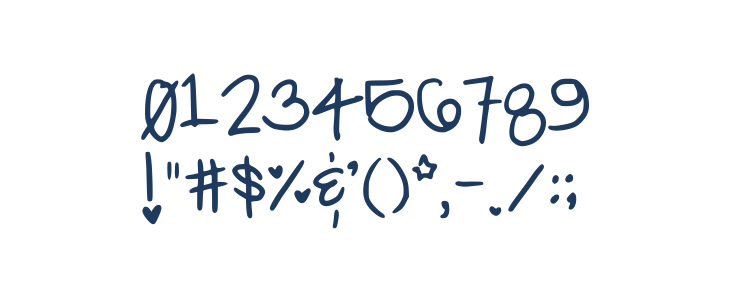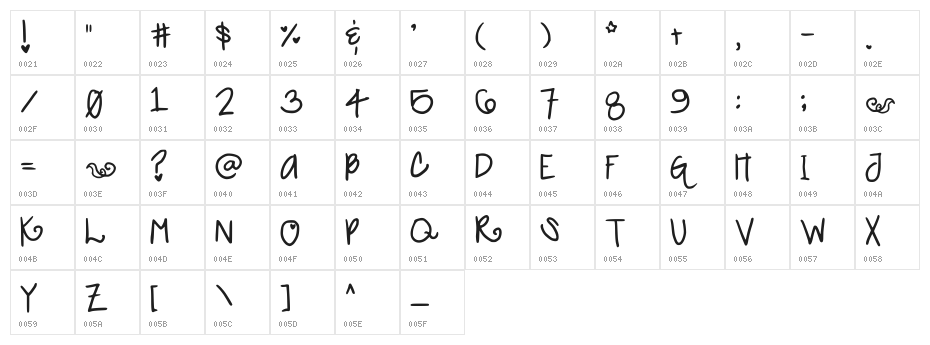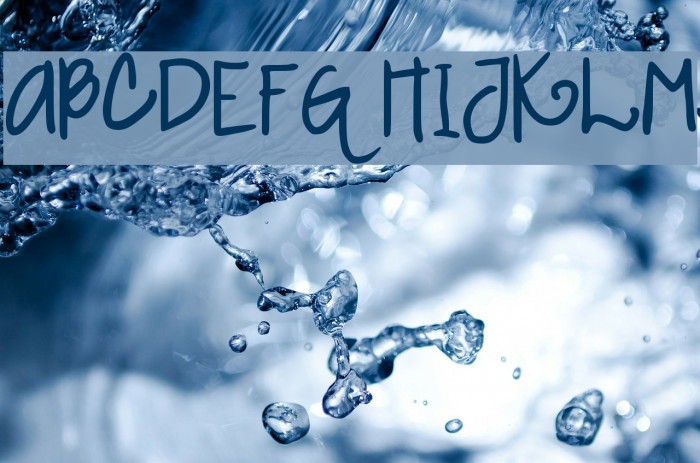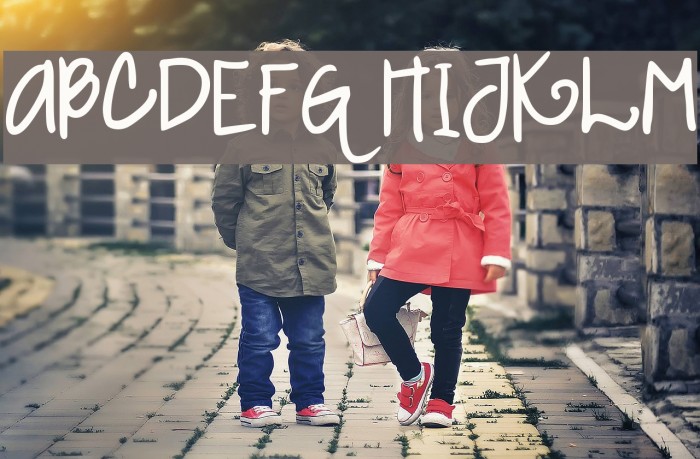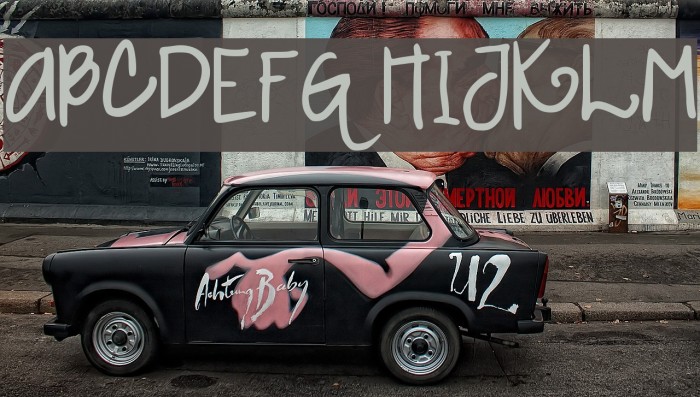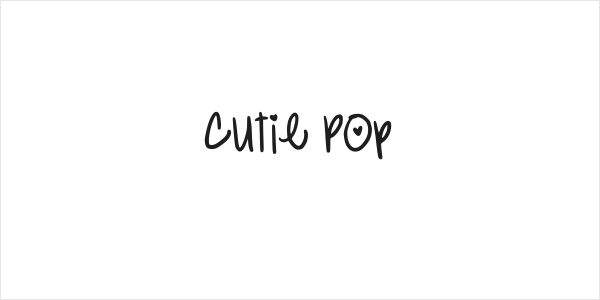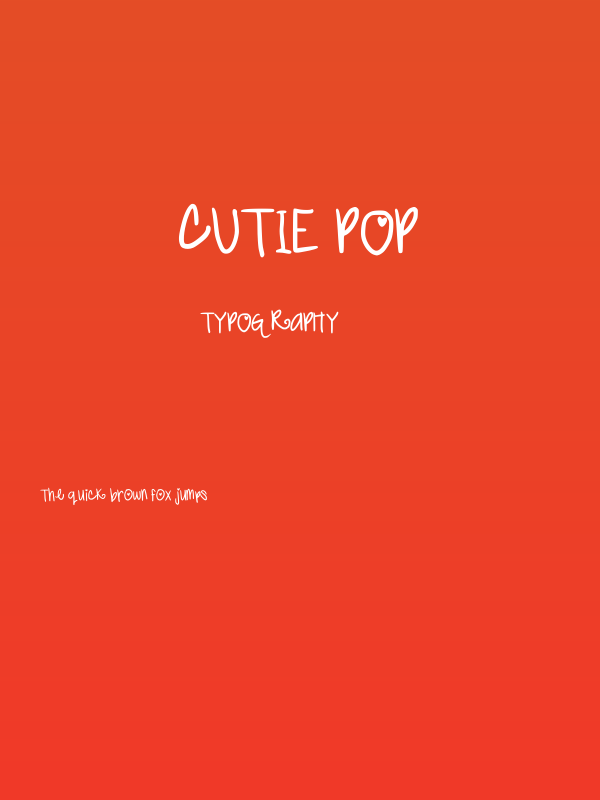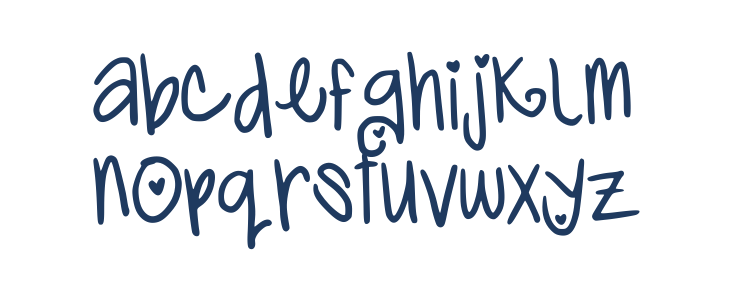
Cutie Pop Font
Cutie Pop Description
This playful and whimsical font features a handwritten style with a lively and energetic appearance. The characters are rounded and have a bouncy baseline, giving them a friendly and approachable feel. The uppercase and lowercase letters are distinct yet harmonious, with some letters incorporating unique decorative elements like hearts and swirls. The numbers and special characters maintain the same playful aesthetic, making this font suitable for creative and informal designs. Its overall style is consistent, with a moderate stroke thickness that ensures readability while retaining its charming personality.
| Proposed Projects | Ideal for children's books, greeting cards, playful branding, and social media graphics. |